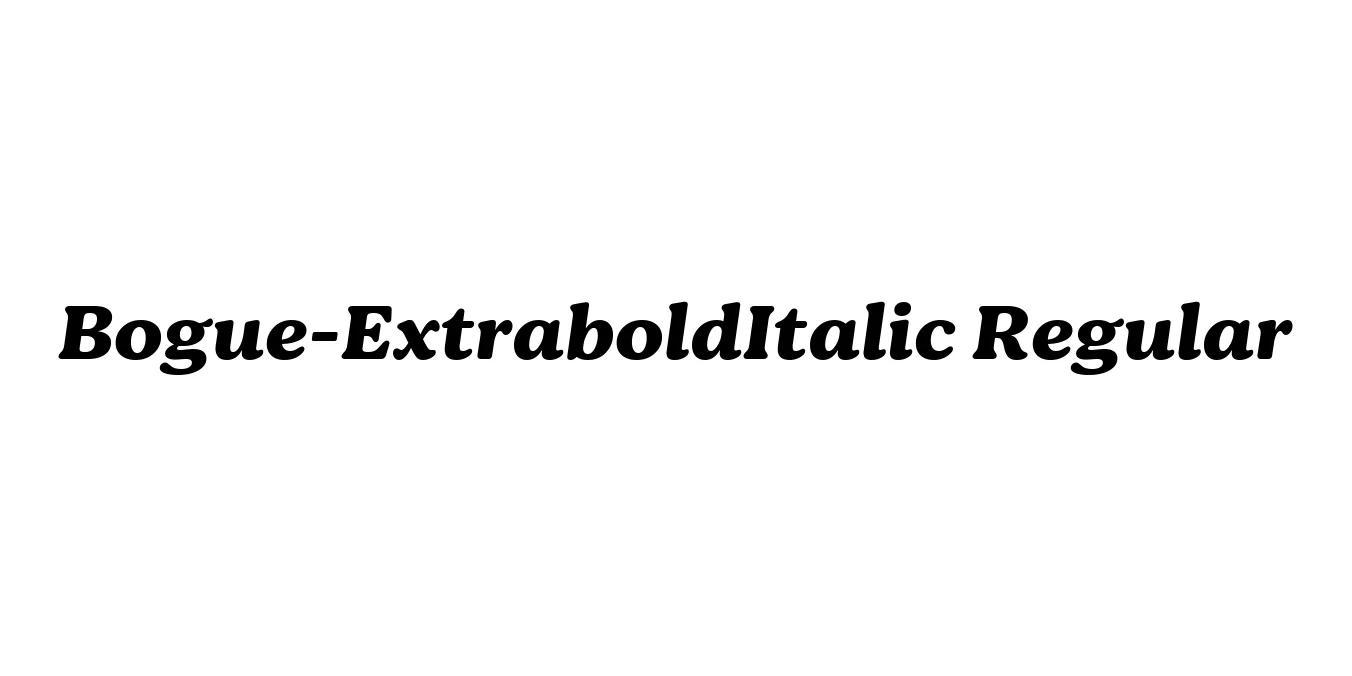
Bogue-ExtraboldItalic Regular
Designed by Mickel Design
| Category | Slab Serif |
| Designer | Mickel Design |
Bogue-ExtraboldItalic Regular is a powerhouse slab serif typeface that belongs to the wider Bogue family, created by the talented designers at Mickel Design. This variant is specifically engineered to bridge the gap between vintage slab serif aesthetics and contemporary geometric trends. With its thick, sturdy strokes and a dynamic italic slant, it provides a sense of motion and urgency while maintaining the grounded stability characteristic of slab-style lettering.
The typeface features subtly rounded corners and clean, open counters, ensuring that even at its most extreme weight, the font remains legible and visually balanced. It is particularly valued in professional graphic design for its ability to create strong visual hierarchies. Whether utilized in a digital environment or traditional print media, the Bogue-ExtraboldItalic adds a layer of sophistication and raw power to any layout it inhabits.
Perfect for high-impact magazine headlines and pull quotes.
Excellent for bold logotypes that require a sense of heritage and modernity.
Ideal for outdoor signage and digital banners where visibility is paramount.
Works well for sports-related merchandise and streetwear branding.